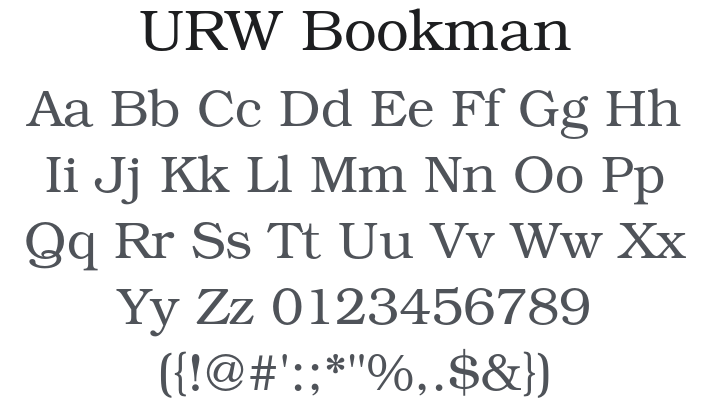
URW Bookman Font Family
by URW++
About URW Bookman
URW Bookman is a robust serif typeface from URW++ and part of the URW Base35 open-source font package, a collection of 35 freely distributable PostScript Level 2 core font equivalents. Targeting ITC Bookman, it features heavy strokes, rounded serifs, and a large x-height that give it exceptional legibility at small sizes, making it well suited for books, newsletters, and display typography requiring warmth and readability.